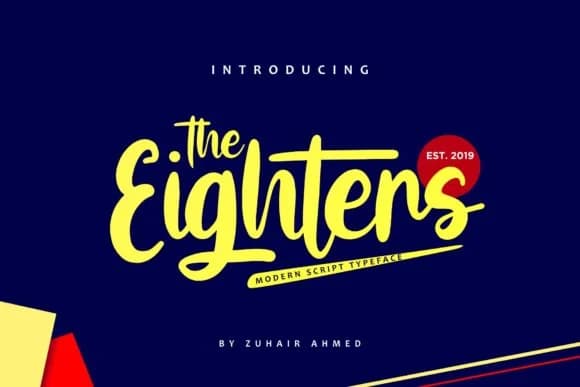
Picture yourself designing a wedding invitation suite, where the lettering needs to feel contemporary but still carry genuine personality. The Eighters, designed by ZHR Creative, is a handwritten script that hits exactly that balance. It's clean enough for modern layouts yet retains the human quality that makes hand-drawn work feel authentic rather than artificial.
This font works particularly well for several specific applications. Etsy product labels benefit from its contemporary edge, especially for stationery and illustration-focused shops. Boutique skincare packaging looks refined when set in The Eighters, and the same applies to DIY craft signage where sophistication matters as much as warmth. The letterforms maintain strong readability at large sizes, which becomes crucial when you're designing physical pieces that need to work in real space and handle the wear of actual use.
What distinguishes this script is its restraint. There's no excess flourish, just deliberate strokes that feel intentional and grounded. Pair it with geometric sans serifs for contrast, or let it breathe as your primary display face. The letterforms hold their clarity whether you're setting it large or small, making it adaptable across mediums. Grab The Eighters on Creative Fabrica and try it on your next project where personality matters.
The Eighters Font is a script font that shines as a display or heading face. Pair it with a clean sans-serif or serif font for body text β the contrast creates a clear hierarchy while the two styles stay balanced and easy to read.
The Eighters Font
by ZHR Creative